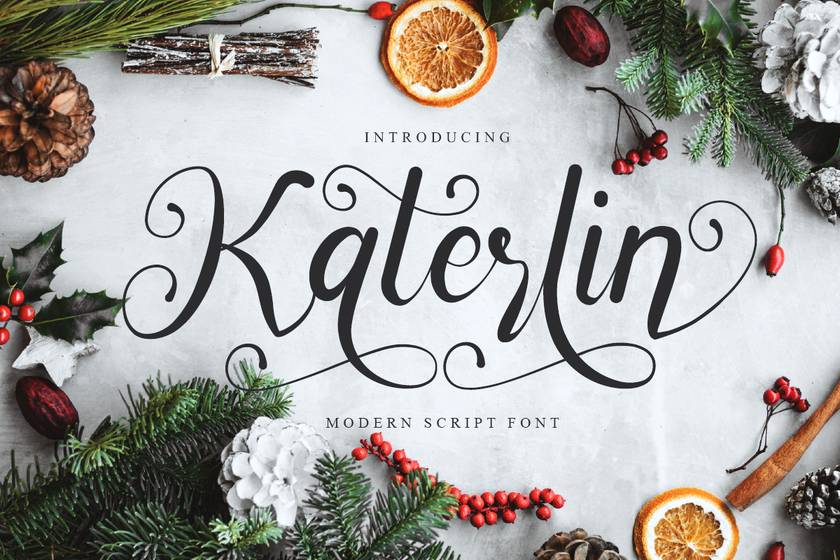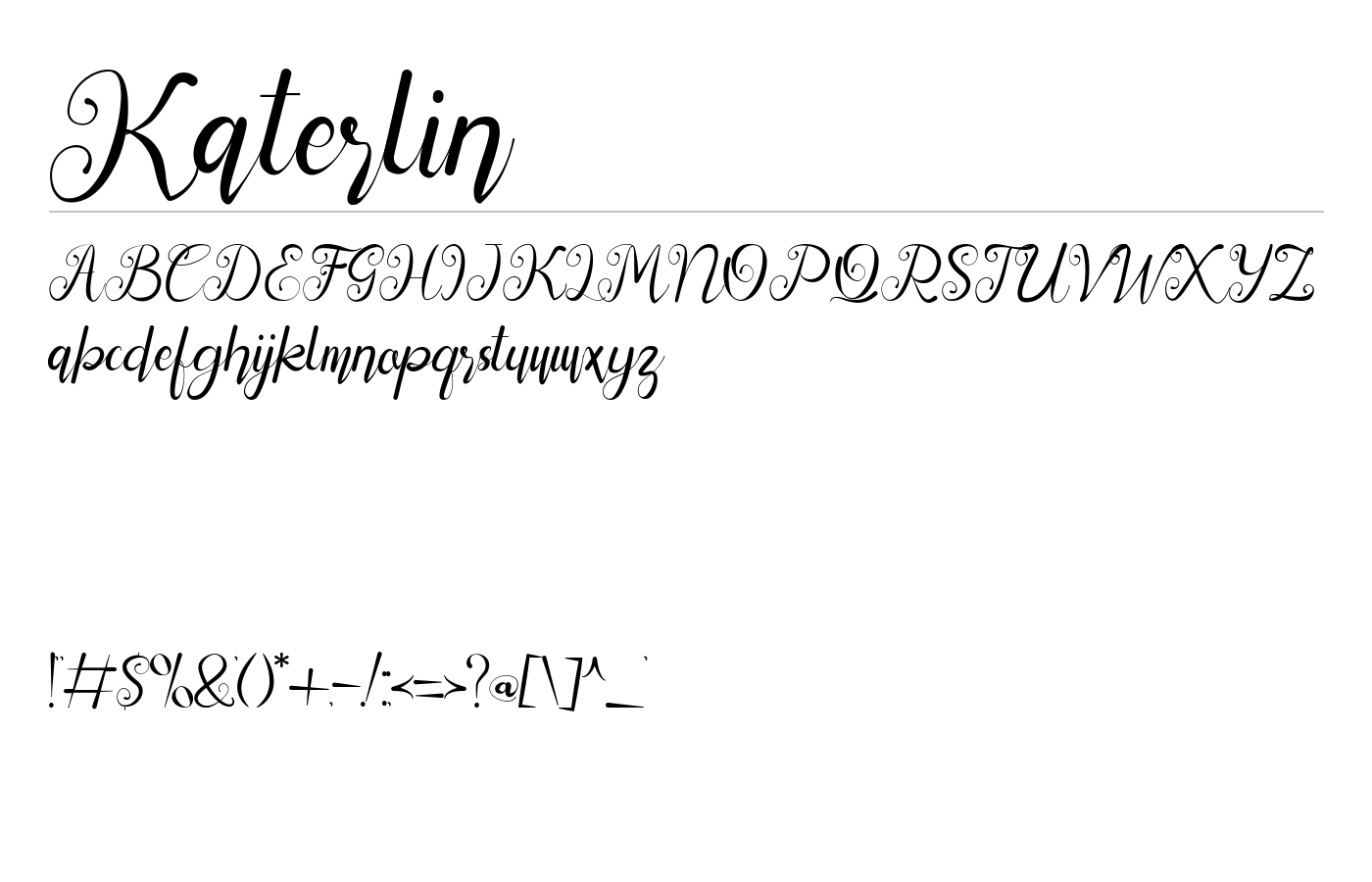
Katerlin is an elegant script font featuring flowing, connected letters with a delicate, calligraphic style that exudes sophistication and charm. Its fine strokes and graceful swashes make it ideal for invitations, branding, and designs that require a refined, feminine touch. This font works beautifully in contexts where a stylish and artistic flair is desired, such as luxury packaging, wedding stationery, and fashion editorial headlines.
Katerlin Font
About Katerlin Font